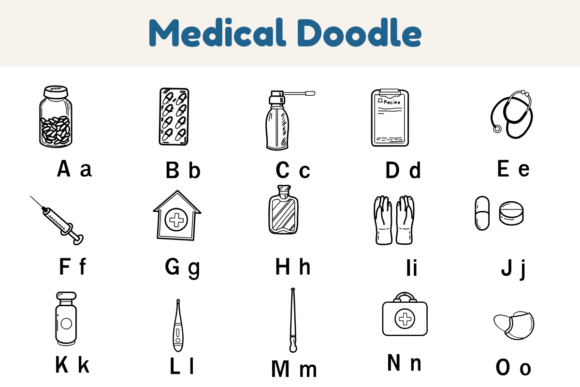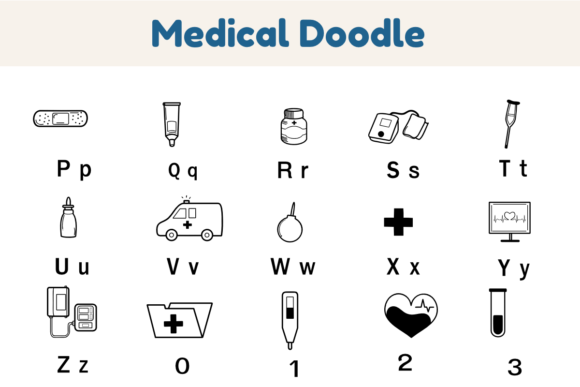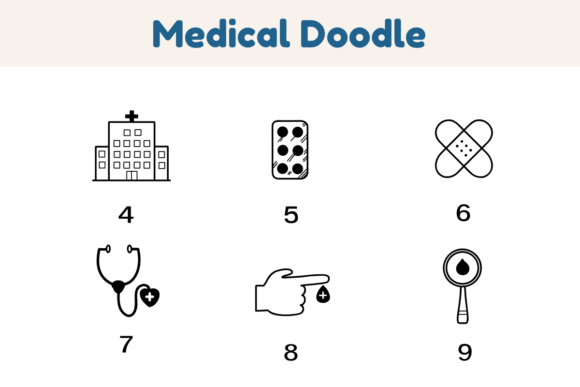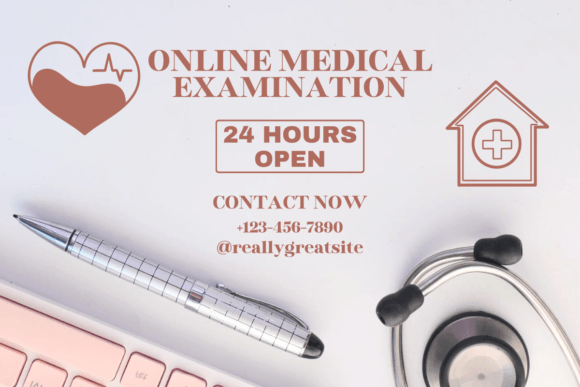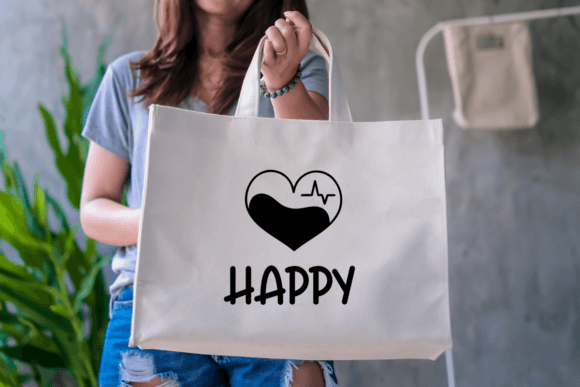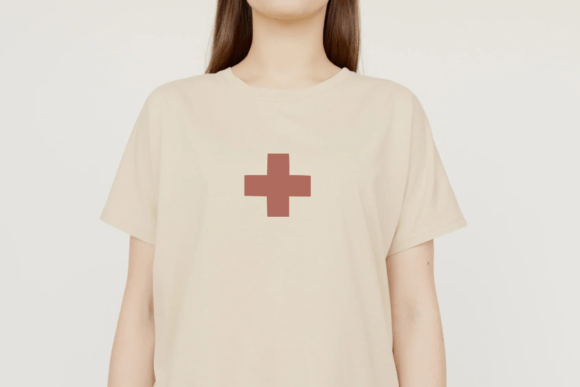
Introduction to Medical Font
Medical is a dingbats font with a sketched theme.
This font can enhance your creative projects such as invitations, DIY, crafts, decorations, logos, and many other creative ideas .
Key Features of Medical Font
Why Choose Medical Font?
Medical Font offers exceptional quality and versatility, making it a valuable addition to your design toolkit. Whether you’re creating for personal projects or commercial use, Medical Font delivers professional results.